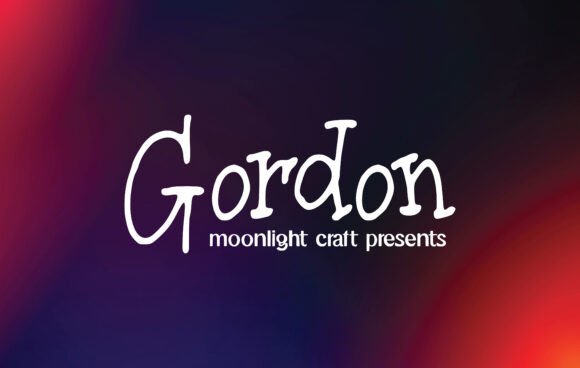
Gordon Font: Elevate Your Creative Ideas with this Lovely Handwritten Font
Are you looking for a font that can take your creative ideas to the next level? Look no further than the Gordon Font. This beautiful handwritten font has the potential to elevate your designs and make them stand out from the crowd. In this article, we’ll take a closer look at the Gordon Font and explore its features, benefits, and uses.
What is Gordon Font?
Gordon Font is a handwritten font that is designed to add a personal touch to your designs. It’s a unique and elegant font that is perfect for creating eye-catching logos, branding, and quotes. The font has a distinctive feel that sets it apart from other fonts, making it a great choice for designers who want to create something truly special.
Features of Gordon Font
The Gordon Font has several features that make it an excellent choice for designers. Some of its key features include:
- Handwritten style: The Gordon Font has a beautiful handwritten style that gives it a personal and unique feel.
- Elegant and sophisticated: The font has an elegant and sophisticated look that makes it perfect for creating high-end designs.
- Highly legible: The font is highly legible, making it easy to read and understand.
- Versatile: The Gordon Font is versatile and can be used for a wide range of design projects, from logos and branding to quotes and posters.
Benefits of Using Gordon Font
There are several benefits to using the Gordon Font in your designs. Some of the key benefits include:
- Unique and distinctive: The Gordon Font is a unique and distinctive font that can help your designs stand out from the crowd.
- Emotional connection: The handwritten style of the font can create an emotional connection with your audience, making your designs more relatable and engaging.
- Flexibility: The font is highly flexible and can be used for a wide range of design projects, from formal to informal.
Uses of Gordon Font
The Gordon Font is a versatile font that can be used for a wide range of design projects. Some of the most popular uses of the font include:
- Logo design: The font is perfect for creating eye-catching logos that stand out from the crowd.
- Branding: The font can be used to create a consistent brand identity that reflects your company’s values and personality.
- Quotes and posters: The font is highly legible and can be used to create beautiful quotes and posters that grab attention.
- Wedding and event designs: The font is perfect for creating beautiful wedding and event designs, such as invitations and programs.
Tips for Using Gordon Font
Here are some tips for using the Gordon Font in your designs:
- Use it sparingly: The font is bold and eye-catching, so use it sparingly to avoid overwhelming your design.
- Pair it with other fonts: The font can be paired with other fonts to create a unique and interesting design.
- Experiment with colors: The font looks great in a variety of colors, so experiment with different colors to find the one that works best for your design.
- Pay attention to spacing: The font needs enough spacing to look its best, so pay attention to the spacing between letters and words.
The Gordon Font is a beautiful handwritten font that has the potential to elevate your creative ideas to the highest level. Its unique and elegant style makes it perfect for creating eye-catching logos, branding, and quotes. With its highly legible and versatile design, the font can be used for a wide range of design projects. By following the tips outlined in this article, you can use the Gordon Font to create stunning designs that grab attention and leave a lasting impression.
- What is the Gordon Font?: The Gordon Font is a handwritten font designed to add a personal touch to your designs.